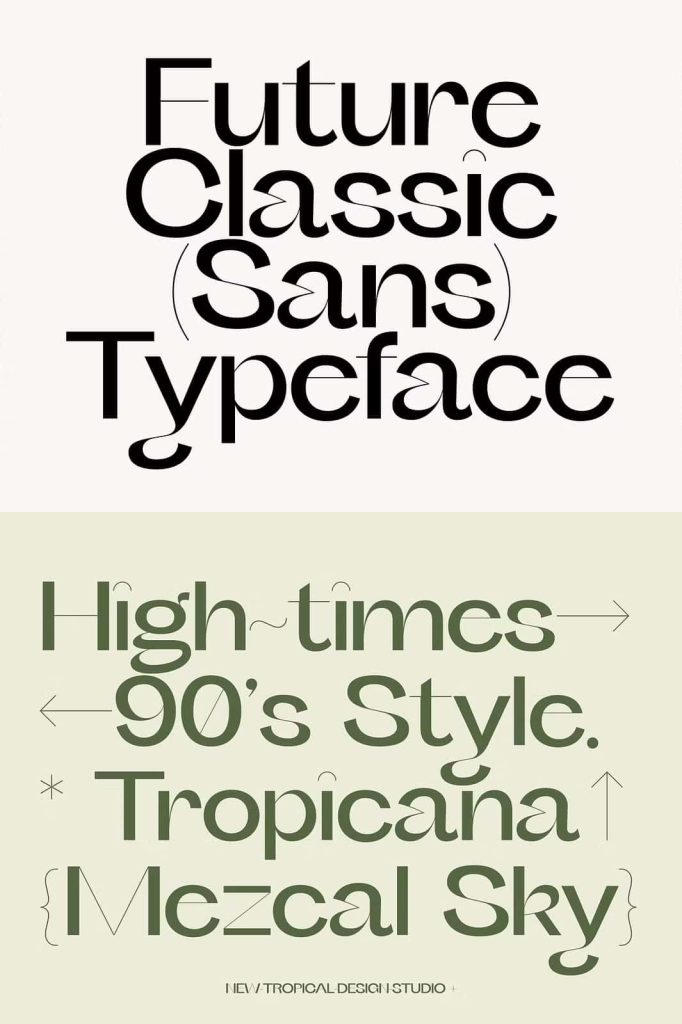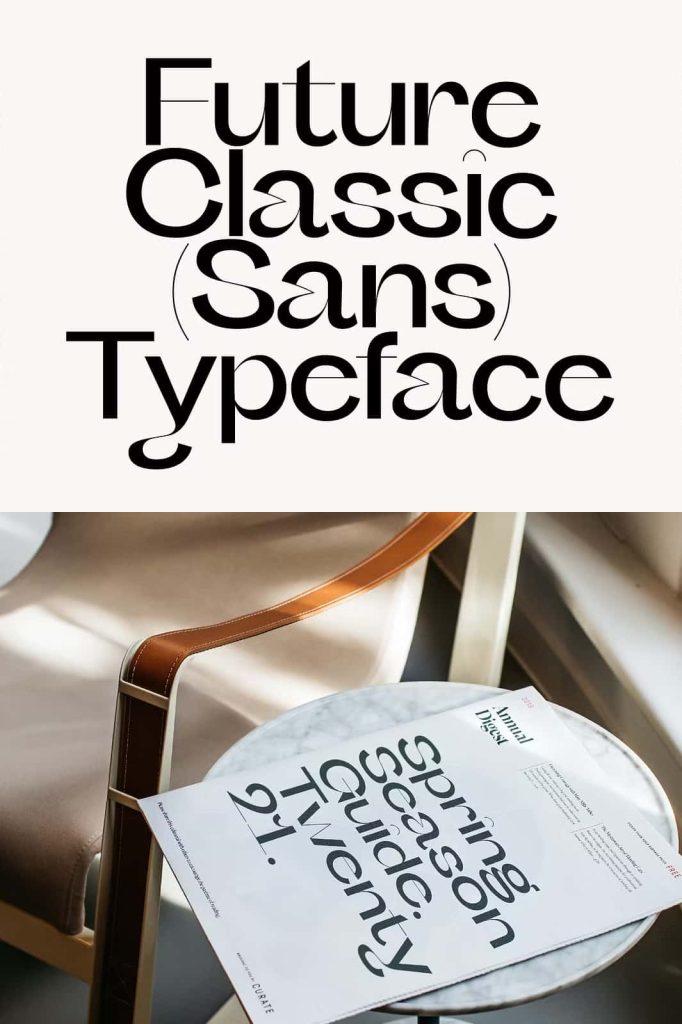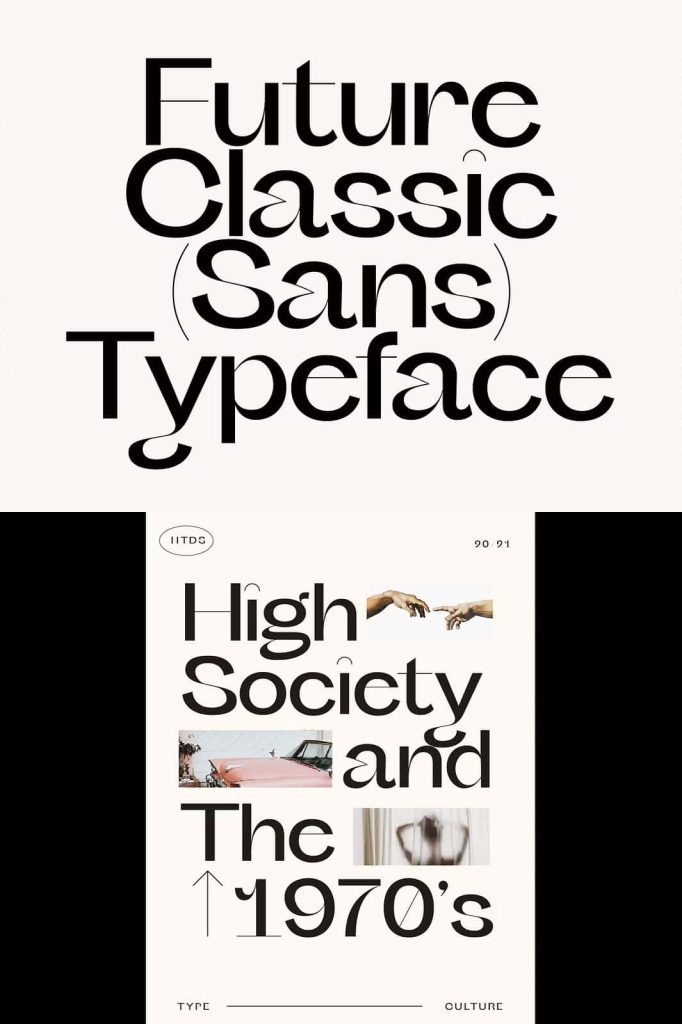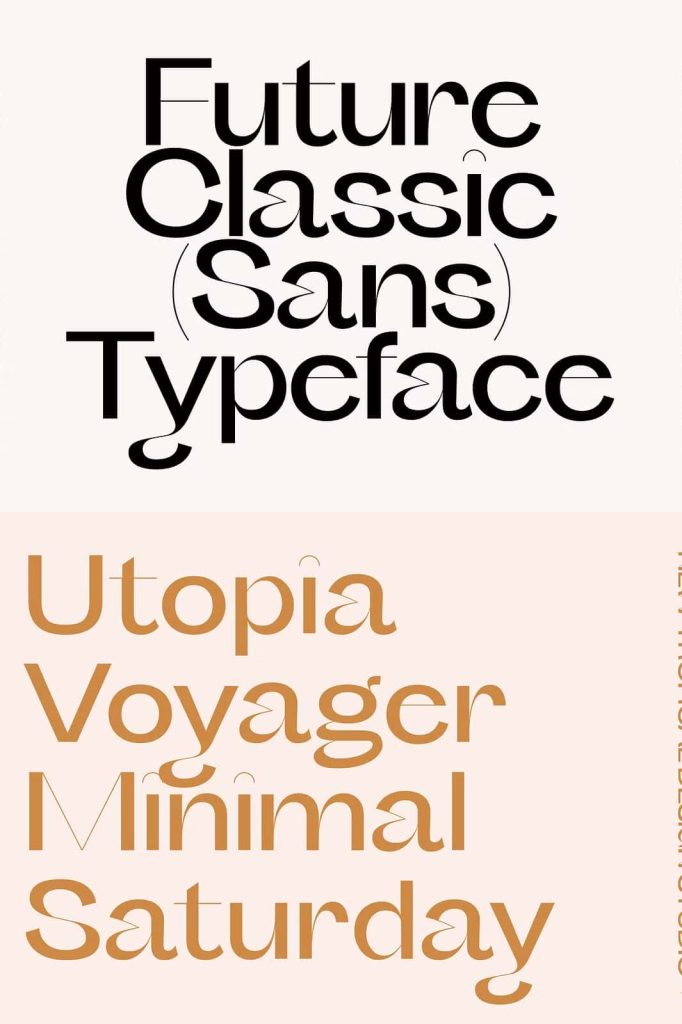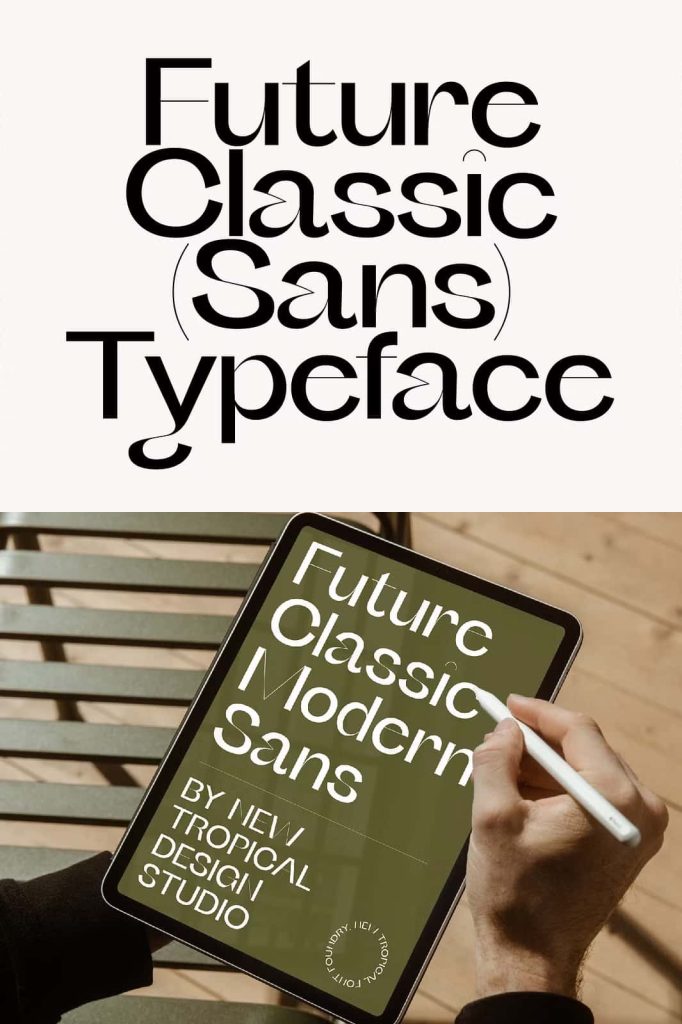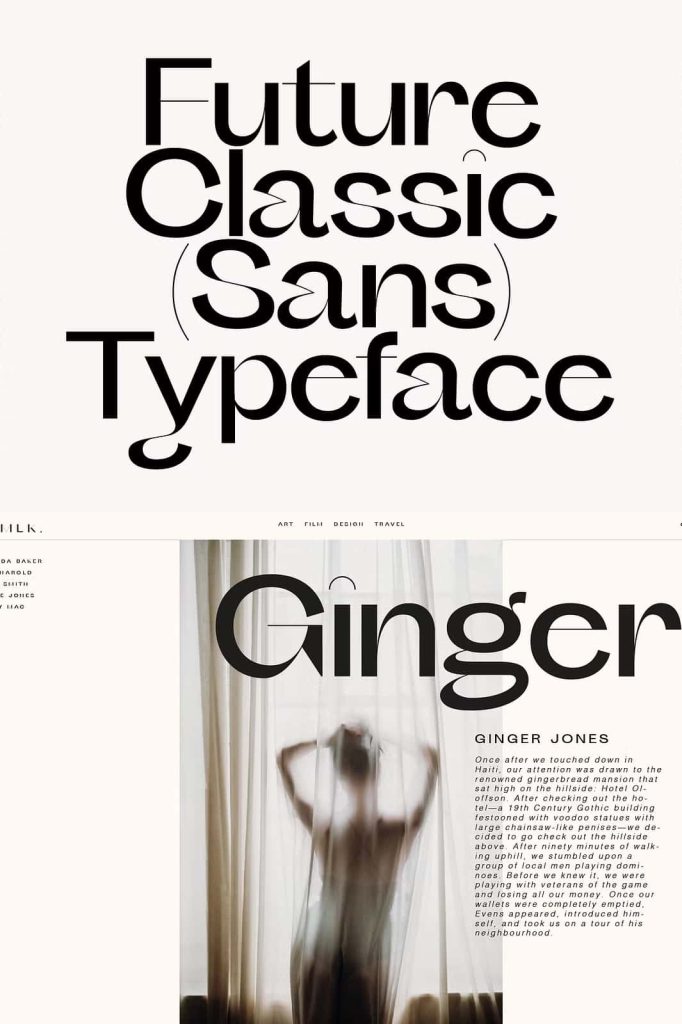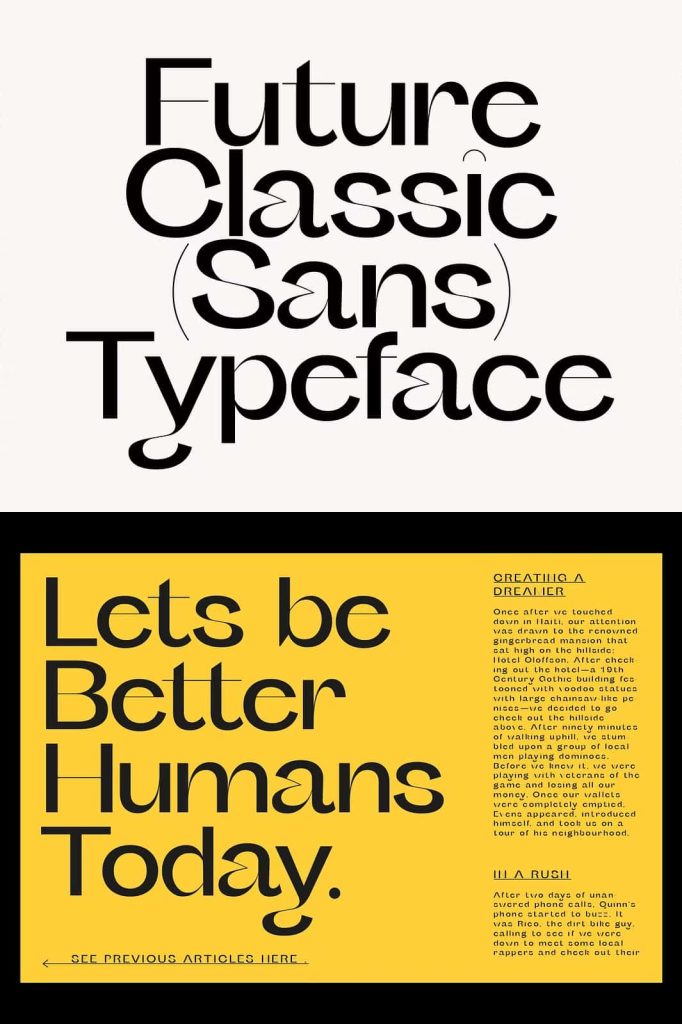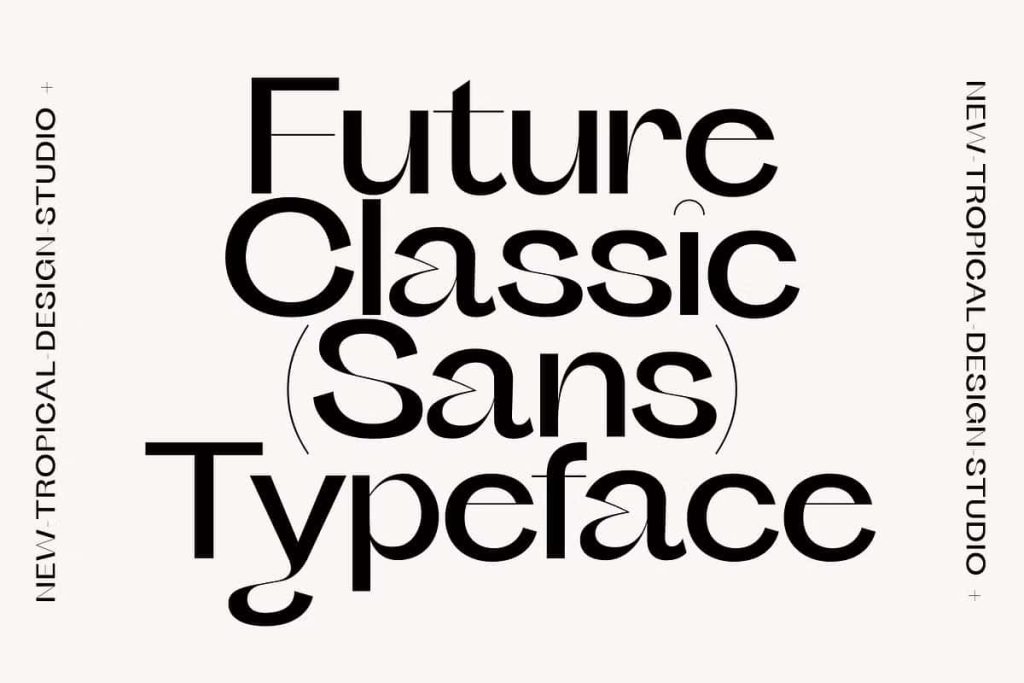
Future Classic Sans TypefaceleastedJune 18, 2025Fonts Future Classic is a unique modern sans serif typeface. A high contrast take on a bold grotesque style. Download